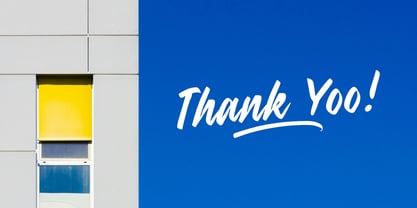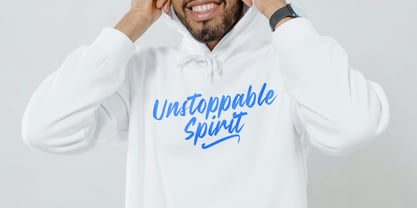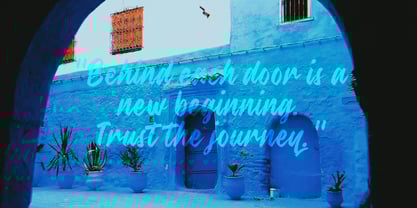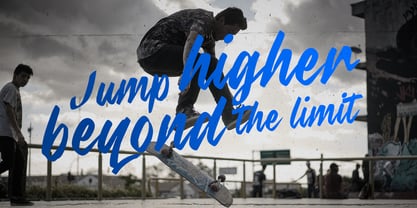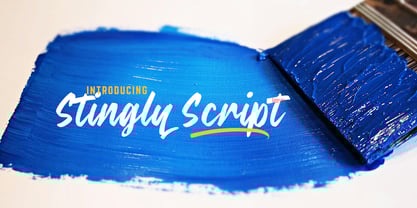
Stingly
Stingly Script – A Bold & Expressive Handwritten Typeface
Stingly Script is a dynamic and energetic handwritten font, crafted with fluid strokes and bold personality. Designed to mimic the charm of brush lettering, this typeface brings an authentic, handcrafted feel to your projects. Its smooth curves and varying stroke weights create a natural, organic flow, making it perfect for branding, packaging, social media, advertising, and more.
With a stylish and modern aesthetic, Stingly Script effortlessly blends elegance and playfulness, making it ideal for designers looking for a font that conveys warmth, creativity, and authenticity. Whether you’re working on logos, invitations, merchandise, or website headers, this script font will add a touch of uniqueness and sophistication to your designs.
Features:
✔ Hand-lettered brush script with a natural flow
✔ Swash included
✔ Perfect for branding, logos, packaging, and social media
✔ Multilingual support for extended usability